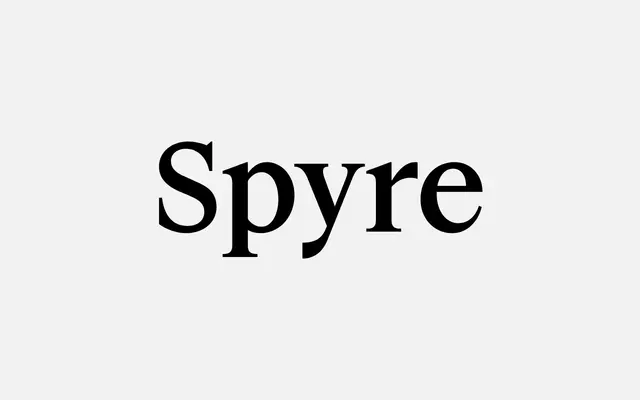
A neo-classical serif in two distinct subfamilies, one optimised for text and the other reintroducing higher contrast and traditional proportions drawn from engraving traditions.
Originating from a type design programme at Kingston School of Art, Spyre began as a revival of Trajan's Inscription before incorporating lowercase forms drawn from old-style and transitional references including Plantin and Times New Roman. The standard Spyre family is built for text, with sturdy serifs, balanced cap widths and a generous x-height, while Spyre Epoch subverts those conventions with heightened contrast, pointed and splayed serifs, and traditional narrower caps. Fourteen styles are offered across both subfamilies, with variable font support included.
Described as neo-classical, Spyre traces Roman forms through to transitional influences including Times New Roman and Plantin, with the Epoch subfamily introducing higher contrast and splayed serifs closer to old-style conventions.